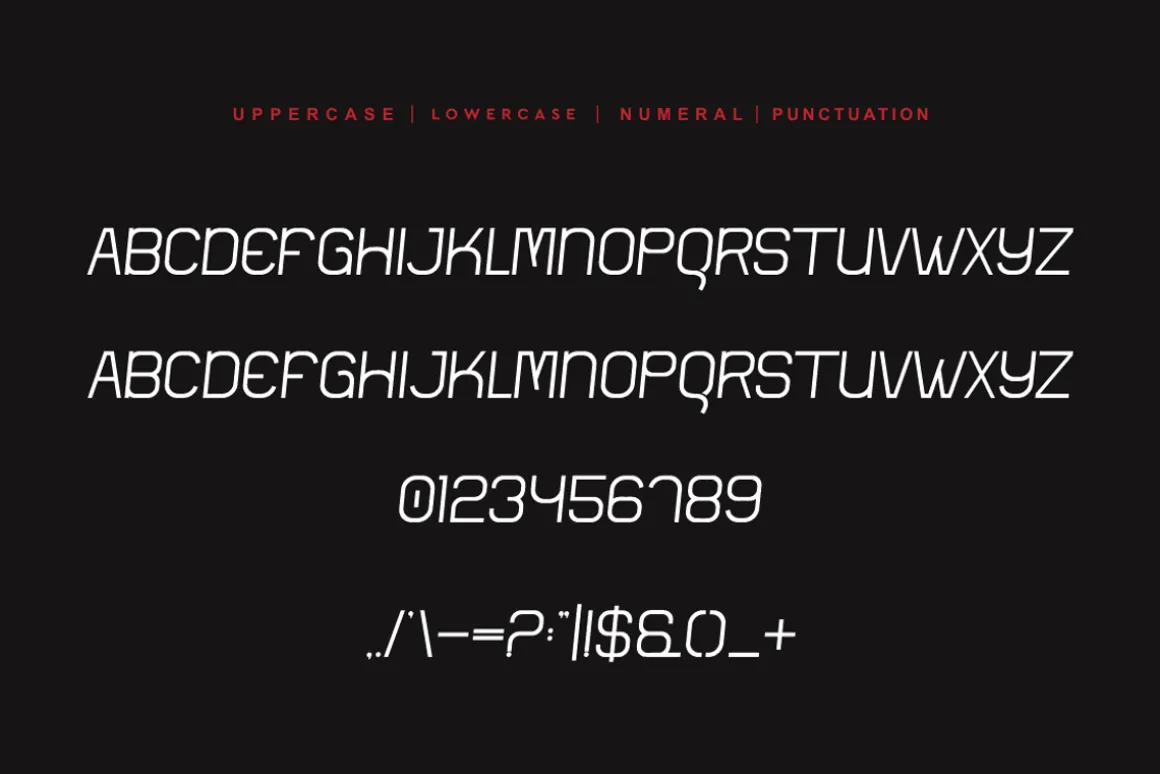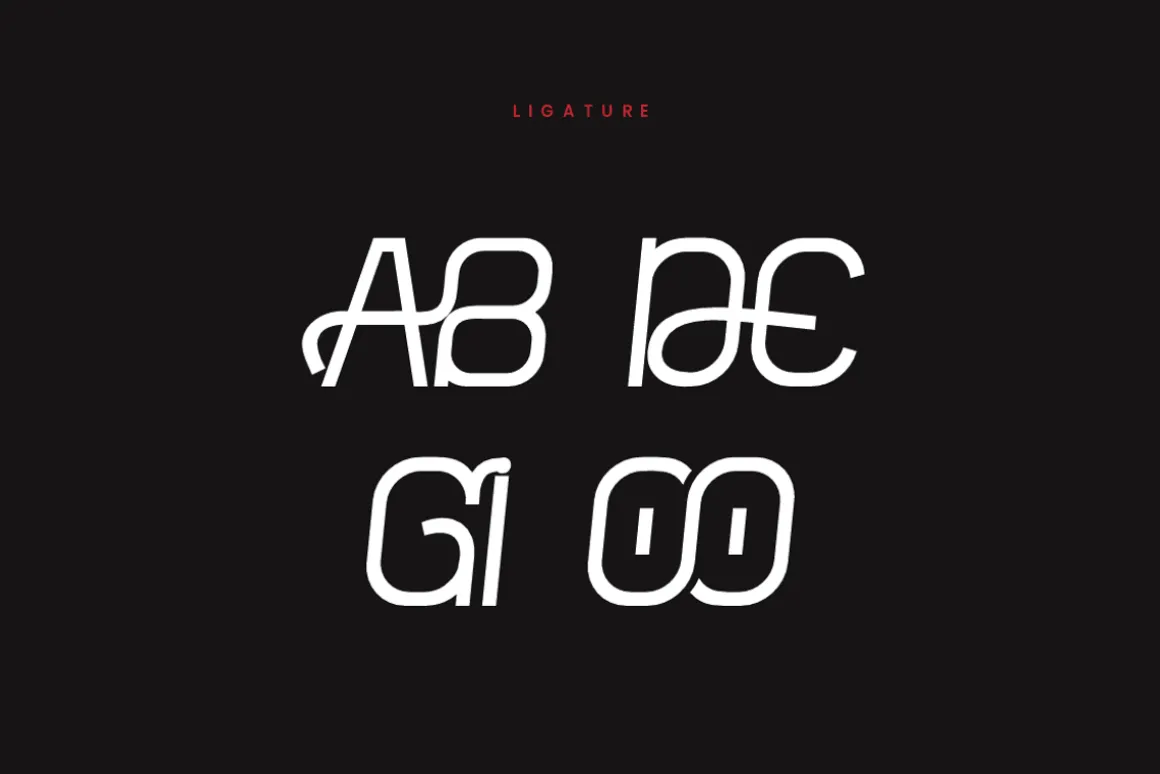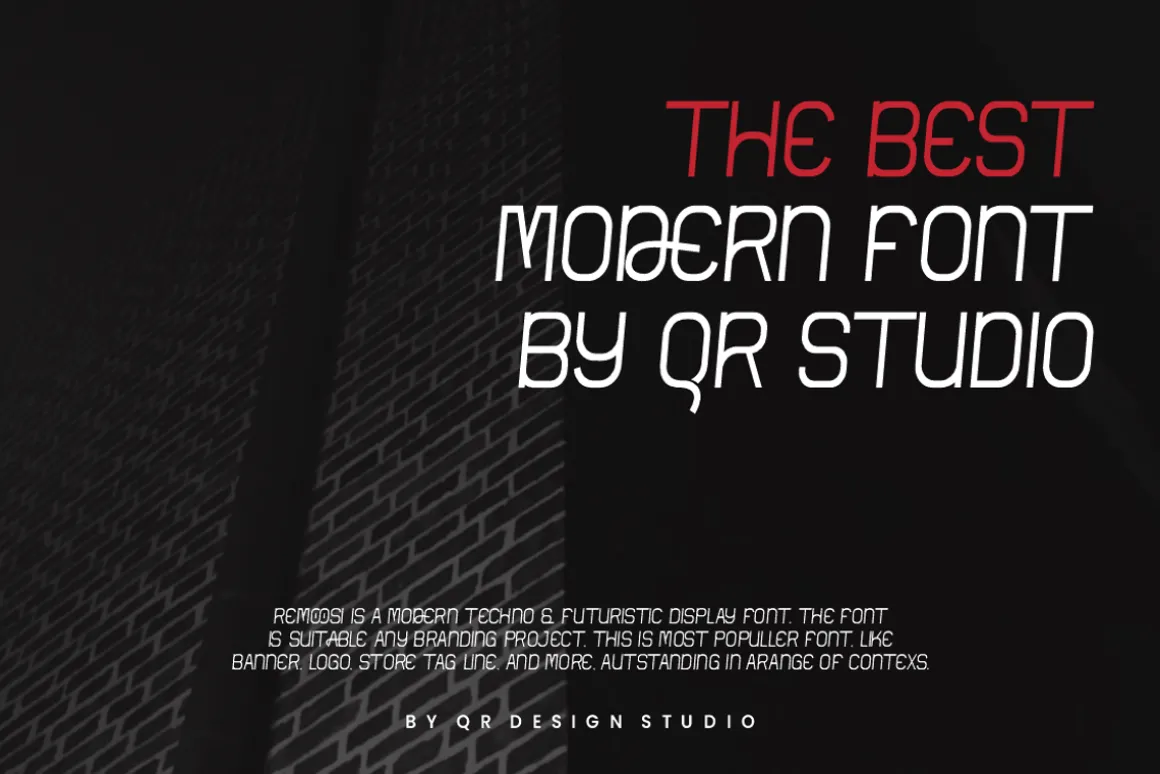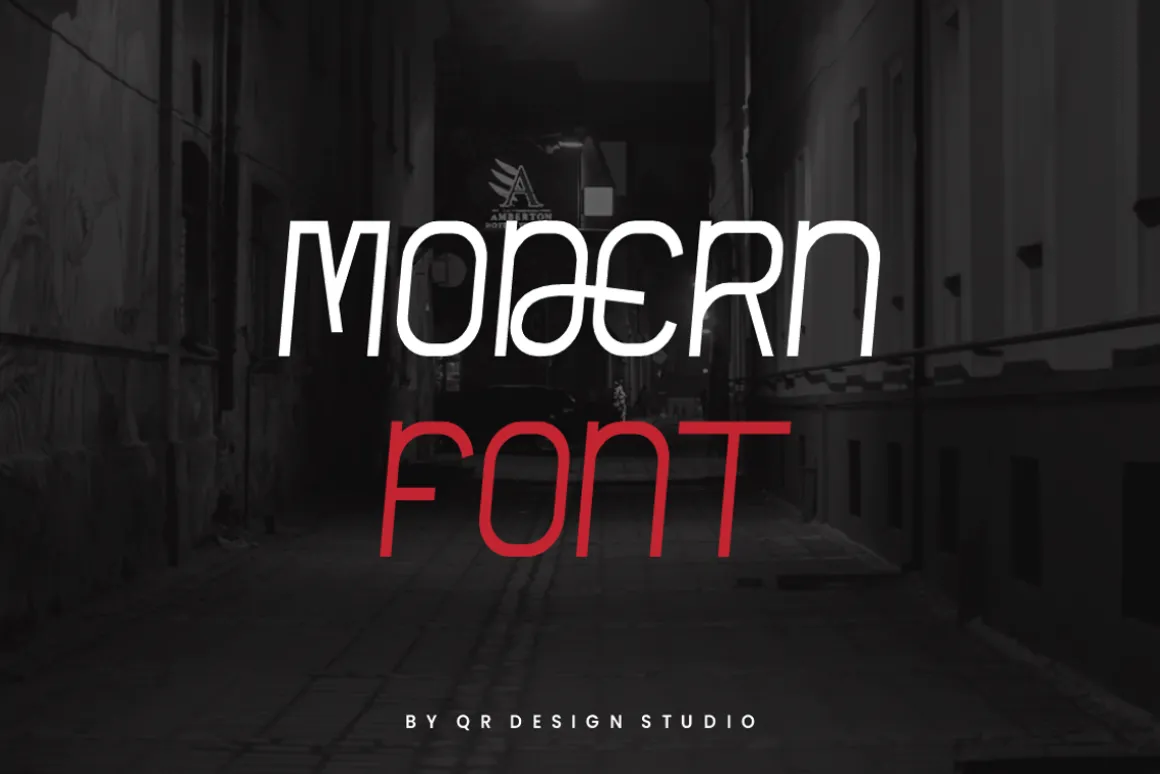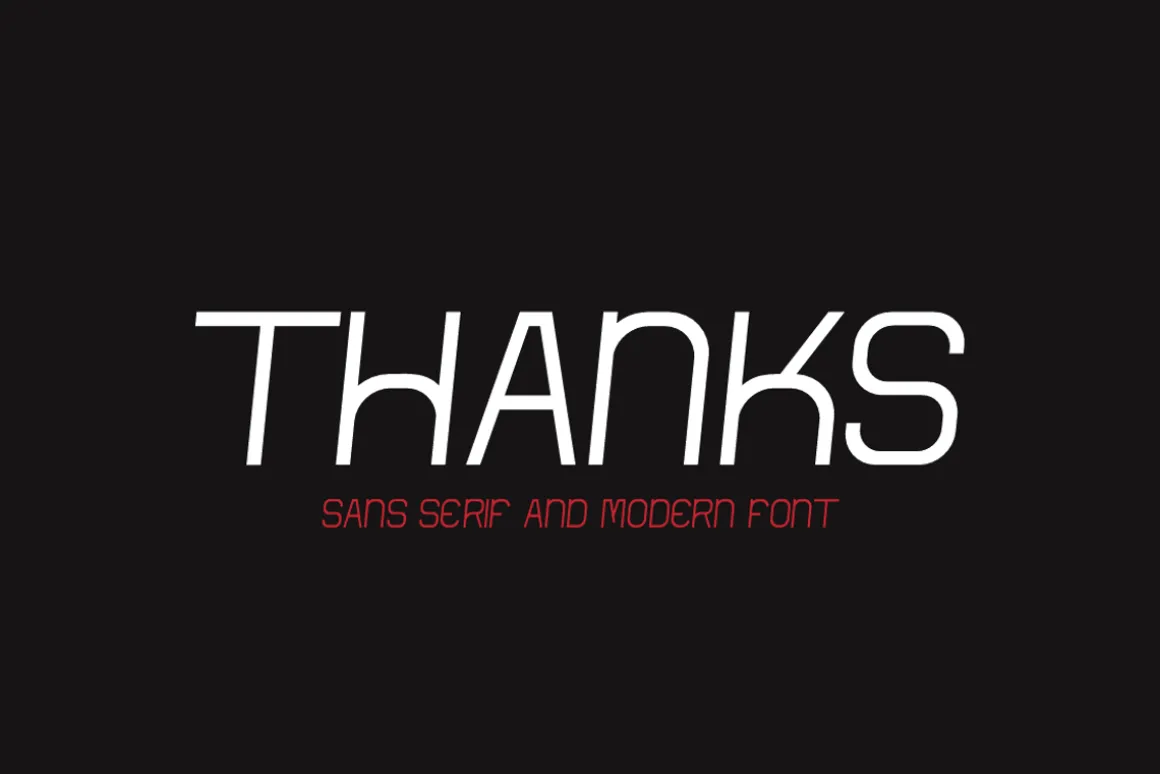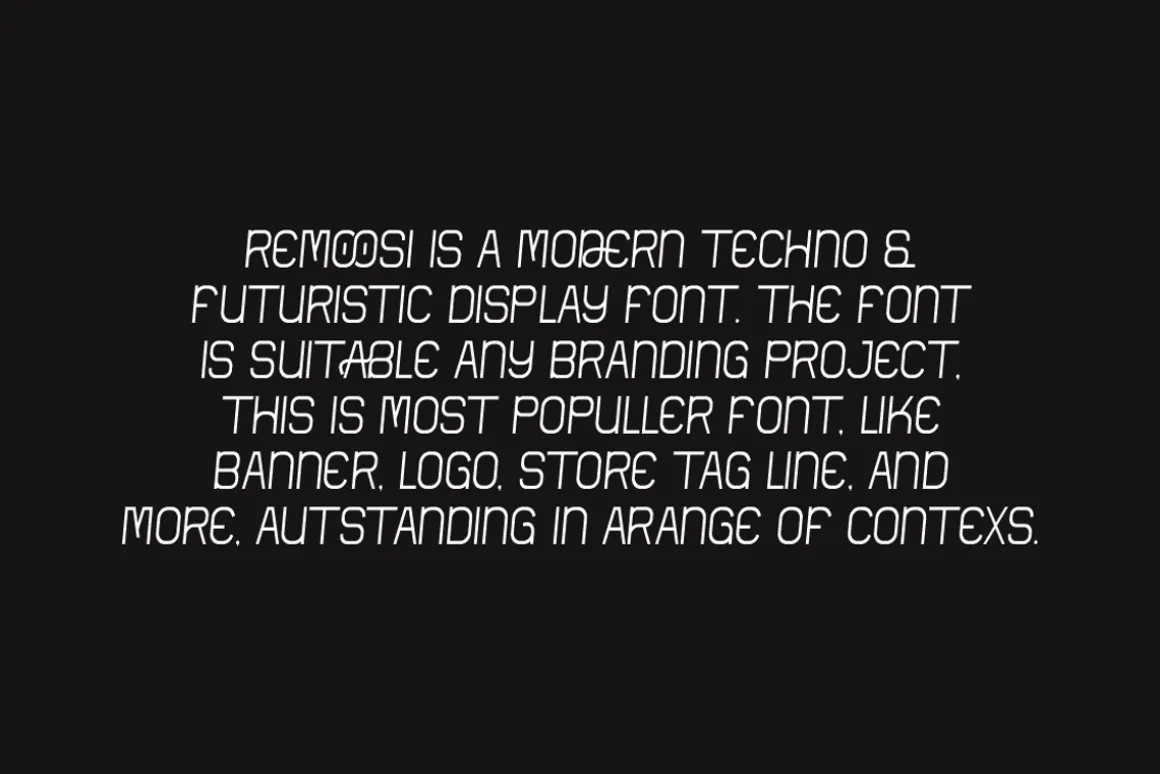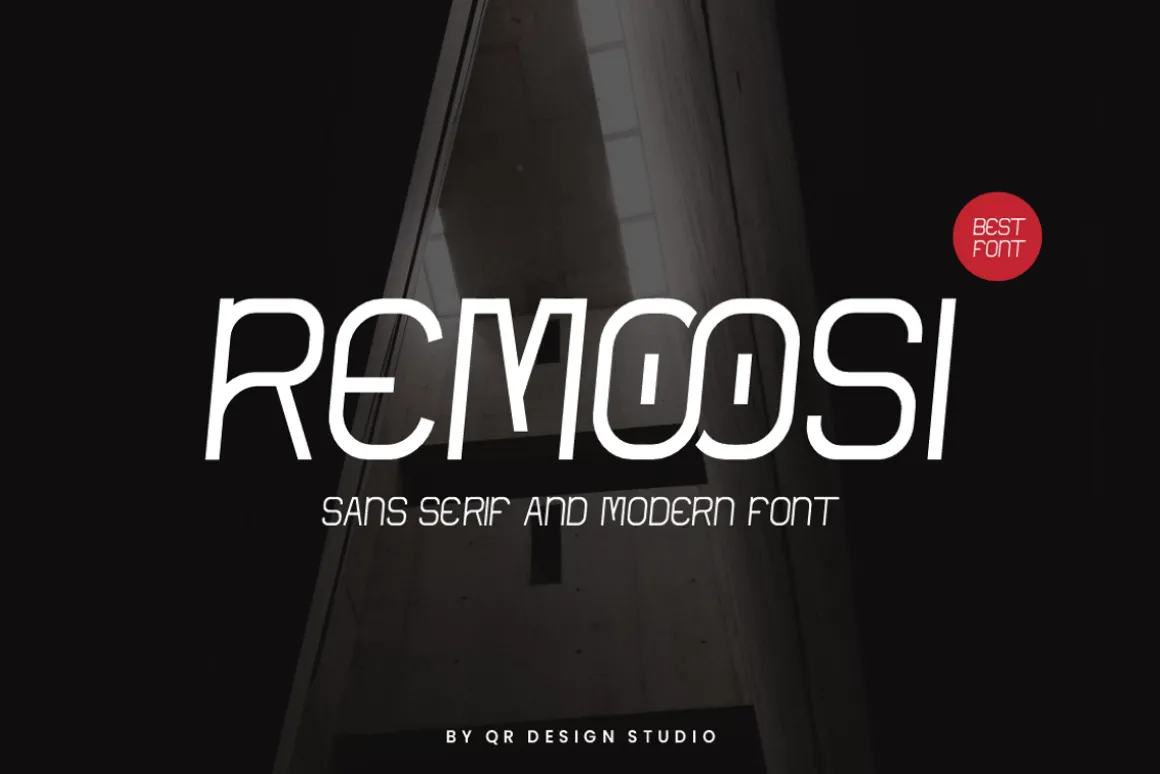
Remoosi Font is a sans serif and authentic display font.The font is suitable for any branding project like poster, logo, sport, and many more.Outstanding in a wide range of contexts.